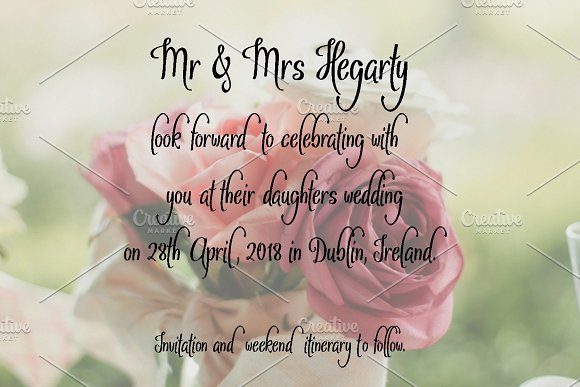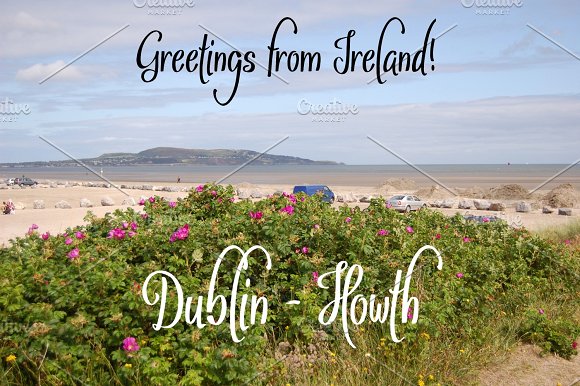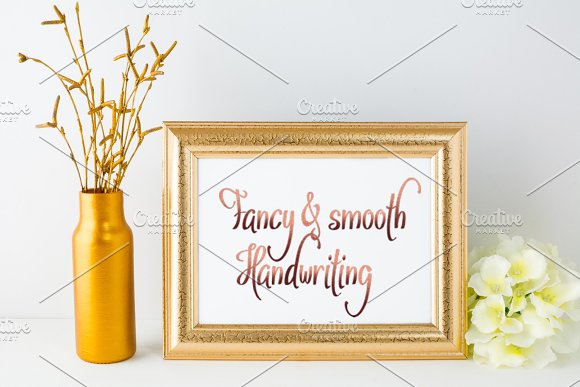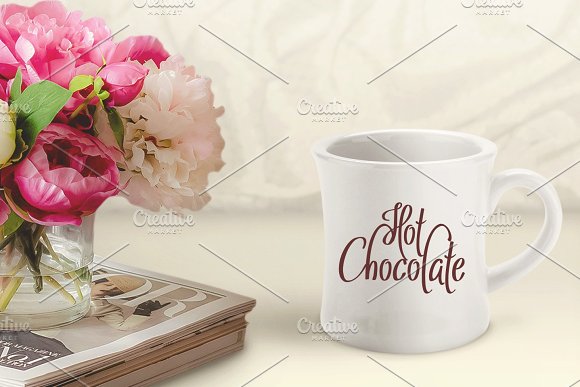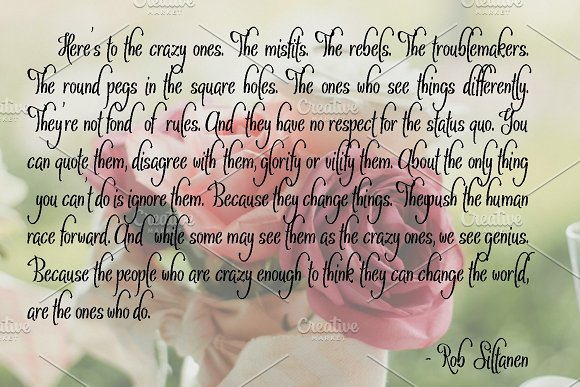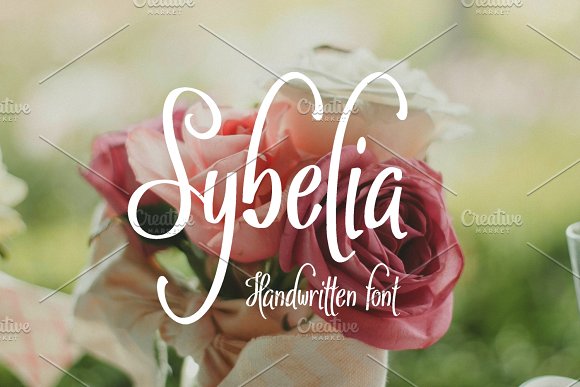
Sybelia Font
Introducing Sybelia handwritten typeface. Great for cards and many craft projects! Download and use across a huge range of programs such as Adobe programs, Corel programs, Cricut and many others!